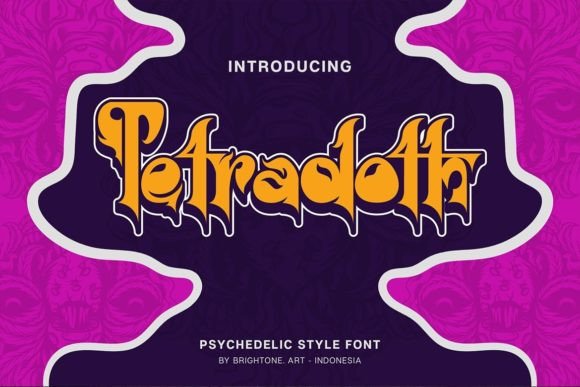
Prepare yourself to be mesmerized by Tetradoth Font, a font that captures the essence of psychedelic art with its unique blackletter style. Its captivating curves and enchanting glyphs dance across the page, leaving a trail of awe and inspiration in their wake. Tetradoth is a font that speaks to the soul of any designer, artist, or creative entrepreneur seeking to make a statement with their designs.
Immerse yourself in the world of Tetradoth, where imagination and creativity intertwine. Picture yourself creating captivating dance posters that come alive with Tetradoth's vibrant curves and dynamic strokes. Your posters will be the talk of the town, attracting dance enthusiasts with their magnetic charm. Tetradoth is more than just a font; it's a gateway to a world of artistic expression and endless possibilities.
With Tetradoth by your side, you'll effortlessly craft eye-catching logos that radiate personality and leave a lasting impression. Its bold and distinctive characters will make your brand stand out from the crowd, ensuring your message reaches far and wide. Tetradoth is the perfect font for creating labels and packaging that exude a sense of exclusivity and sophistication. Its intricate details and elegant lines will transform ordinary products into extraordinary works of art.
Unleash your creativity with Tetradoth as you design enchanting stickers that add a touch of magic to your designs. Whether you're creating pouch bags or branding materials, Tetradoth will elevate your creations to new heights, captivating audiences with its mesmerizing charm. As you explore the depths of Tetradoth's versatility, you'll discover a font that adapts effortlessly to a wide range of projects.